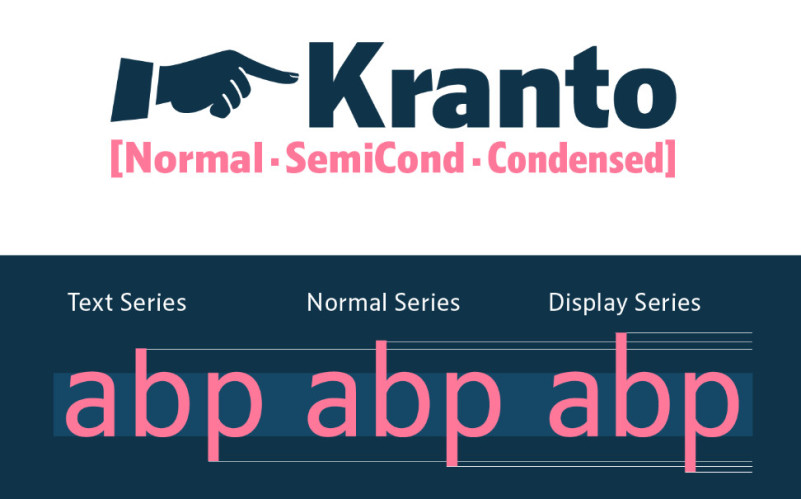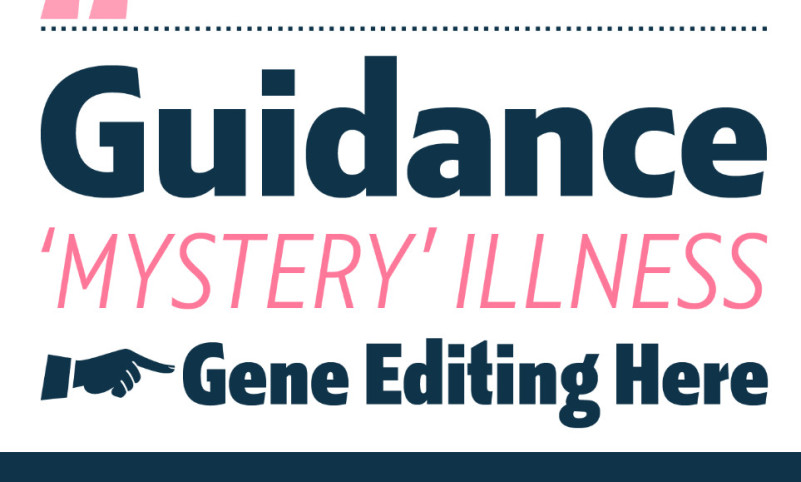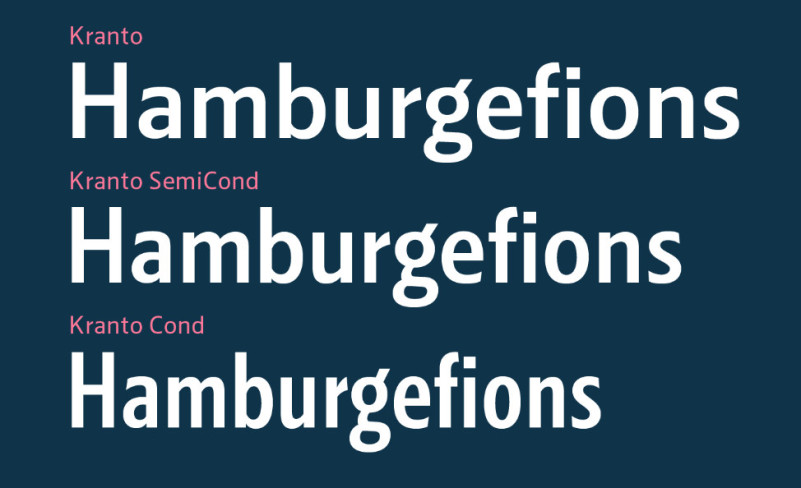
Kranto Font
Kranto Sans Serif Font Family, a sans serif superfamily composed of 144 fonts designed by Ramiro Espinoza, draws inspiration from a group of mainly British and German grotesque typefaces from the first half of the twentieth century. Its three subfamilies—Kranto Normal, SemiCond, and Condensed—grow progressively narrower.
Each subfamily comes in seven weights, from Thin to Black—and, for maximum typesetting and typographic flexibility, each weight is available in three different x-heights: Text, Normal, and Display.
Brimming with subtly original design details, Kranto is a solid, trustworthy, and readable typeface that strives for objectivity and neutrality. Its unassuming nature makes Kranto an ideal choice not only for a broad assortment of corporate, editorial, and digital jobs, but also for environmental uses like signage and wayfinding systems.
Kranto is also fully equipped to tackle complex, professional typesetting. Its extensive character set includes fractions, case-sensitive forms, arrows, ordinals, icons, and tabular figures. In addition to standard Latin, it also supports Central European, Baltic, and Turkic languages.